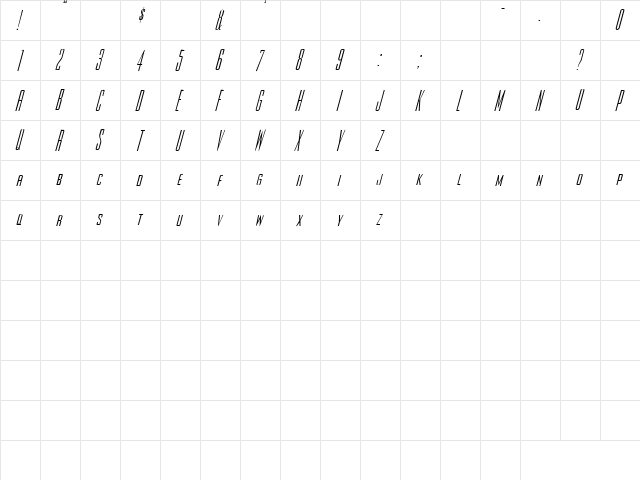
Joe 8 Italic Font Preview
Joe 8 Italic
Joe 8 Italic Font Details
Design Context for Joe 8 Typeface
Joe 8 takes a measured approach to typography — its balanced proportions and neutral character make it a reliable workhorse for both digital and print work. The slanted form adds forward momentum and visual energy.